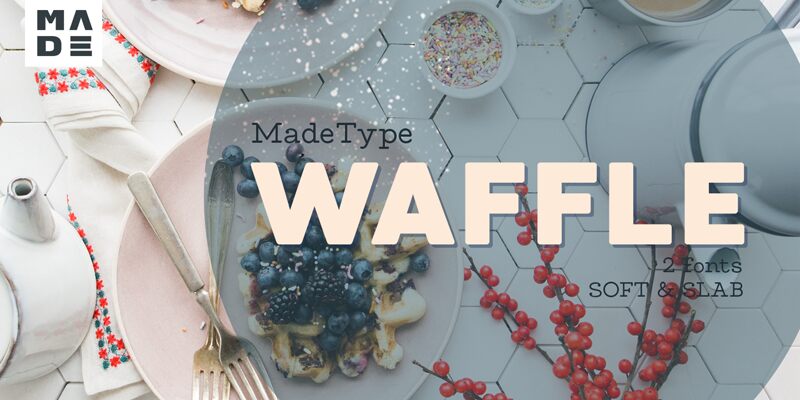
MADEWaffleSoft
MADE Waffle - ideal for creating logos, headings. Applicable in the design of restaurants and cafes. MADE Waffle are two fonts created for combinations of your ideas. Font is FREE for PERSONAL USE. Contact me mail for commercial use and questions: Madetypeinfo@gmail.com